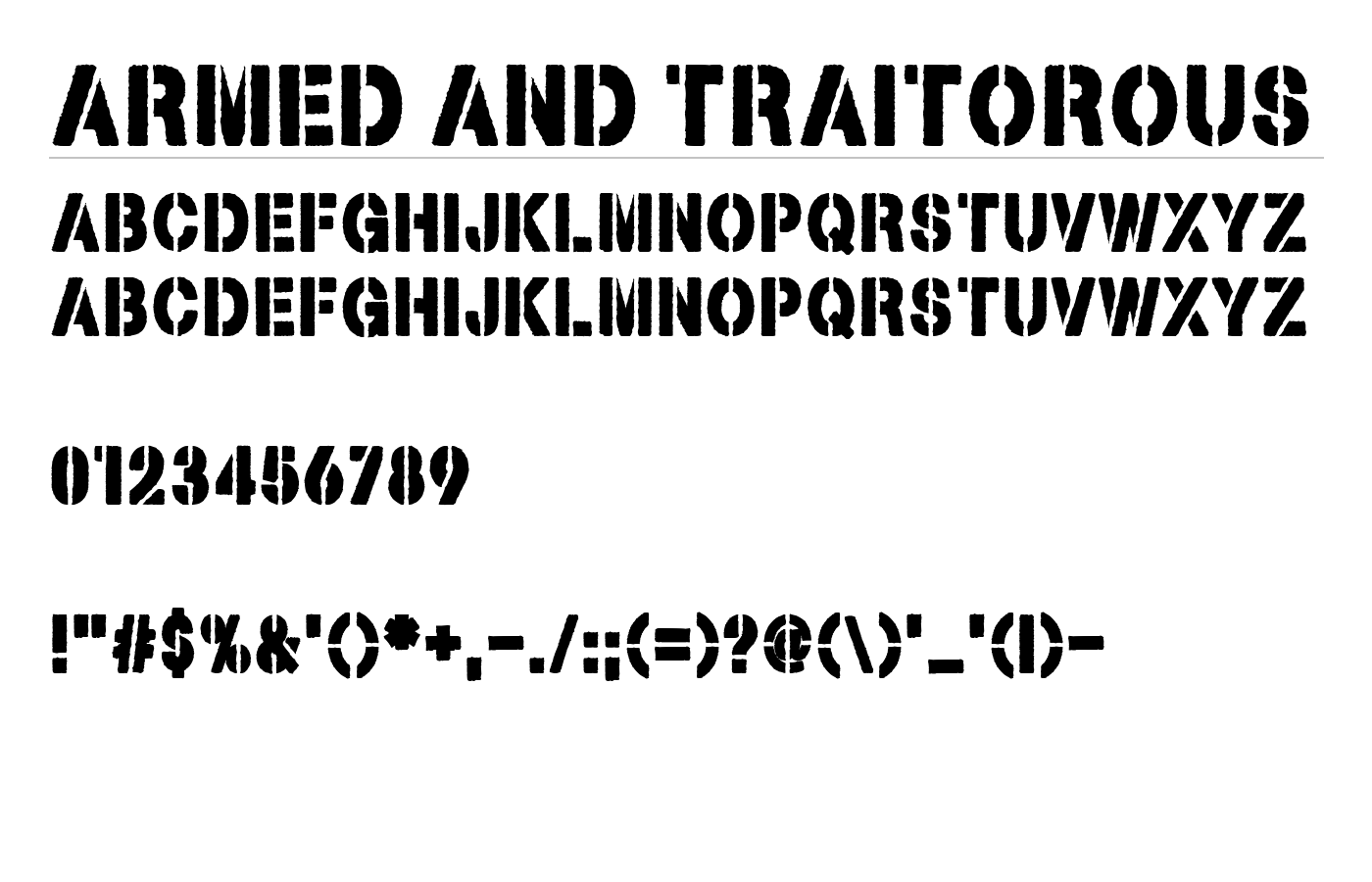
Armed and Traitorous is a bold, condensed stencil font with a rugged, military-inspired feel. Its strong geometric shapes and distressed texture give it an edgy, utilitarian vibe, ideal for impactful headlines, posters, or branding that demands attention. This font works especially well for designs seeking a tough, rebellious character with a vintage industrial touch.
Armed and Traitorous Font
About Armed and Traitorous Font